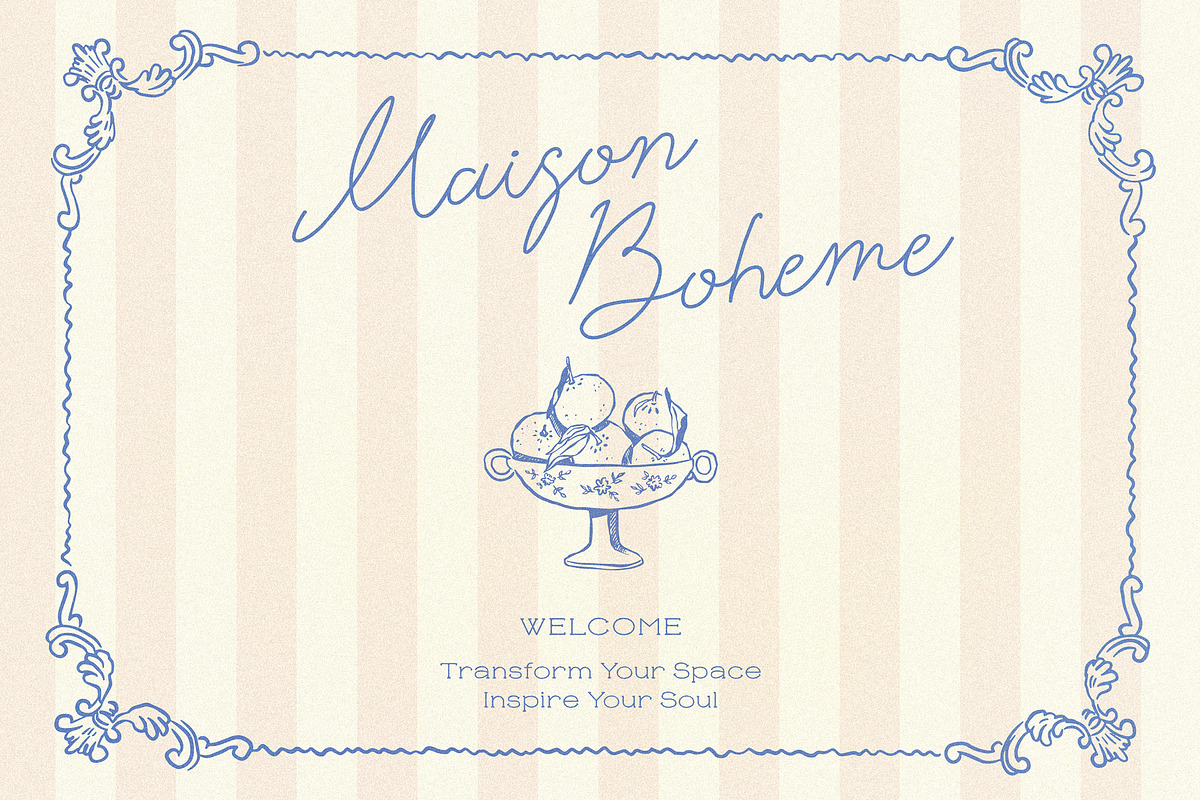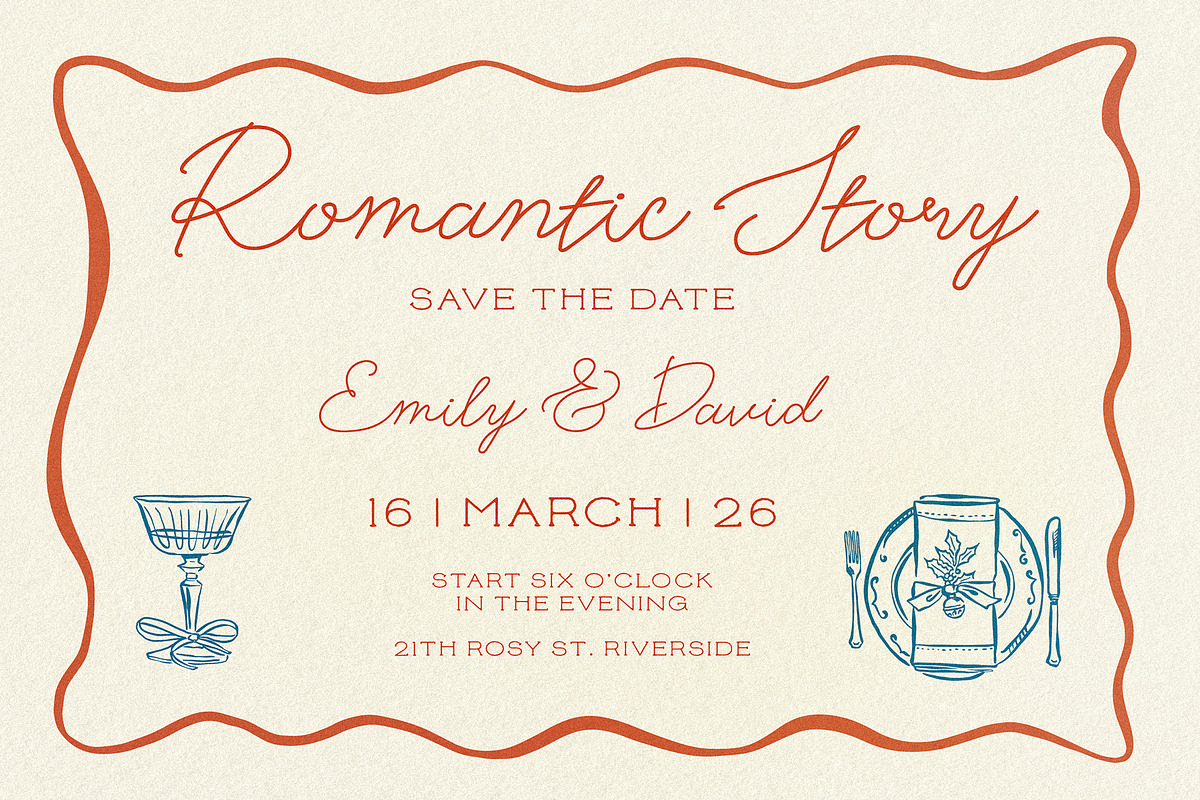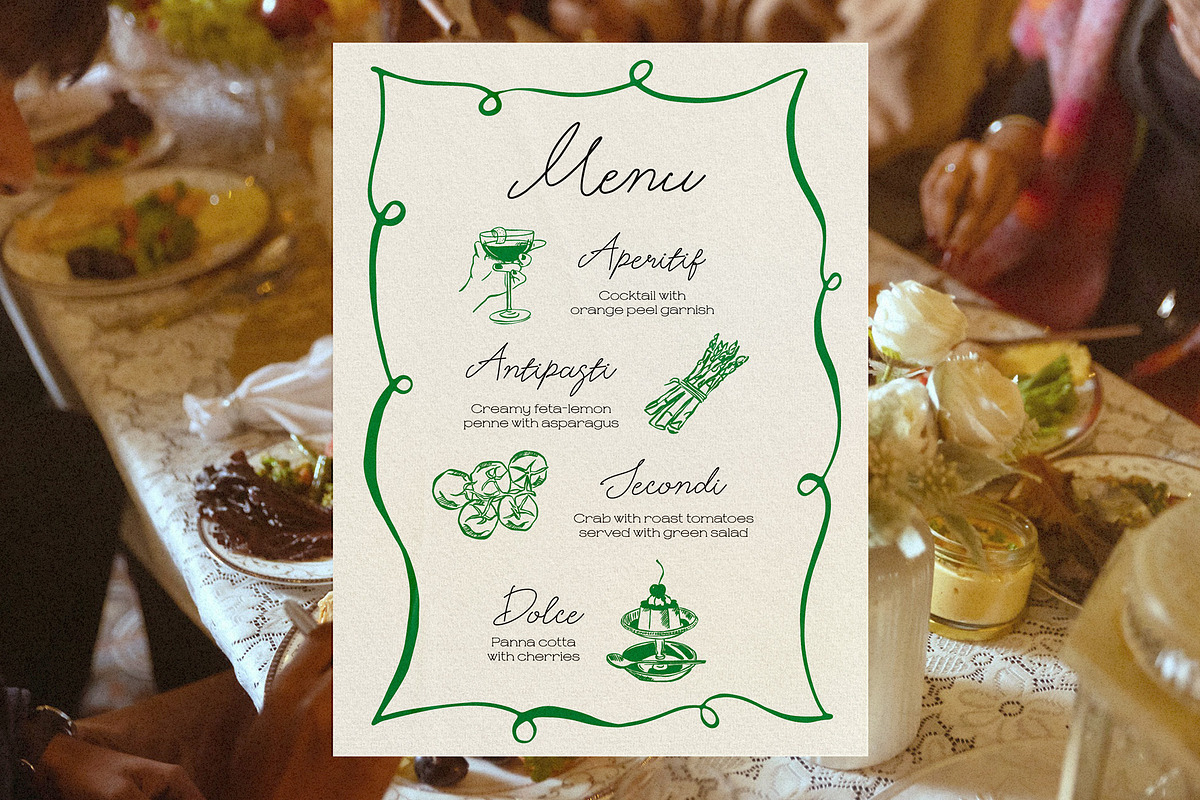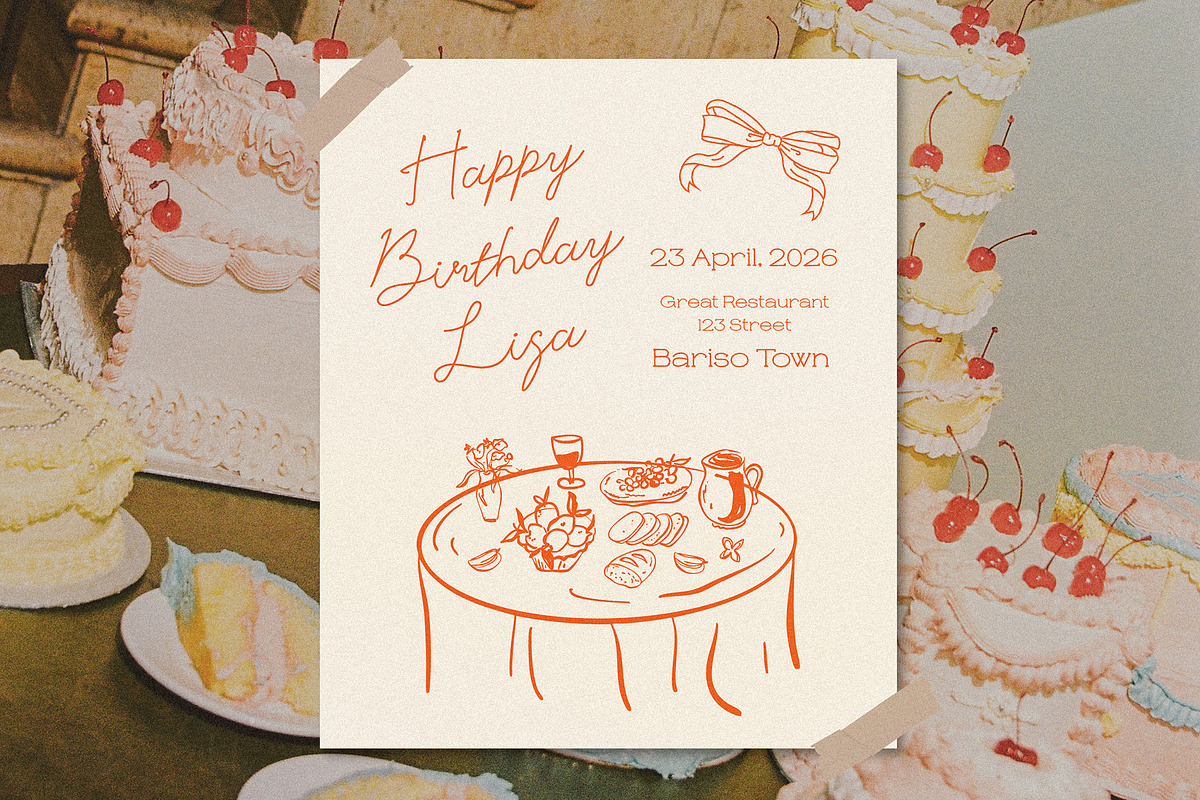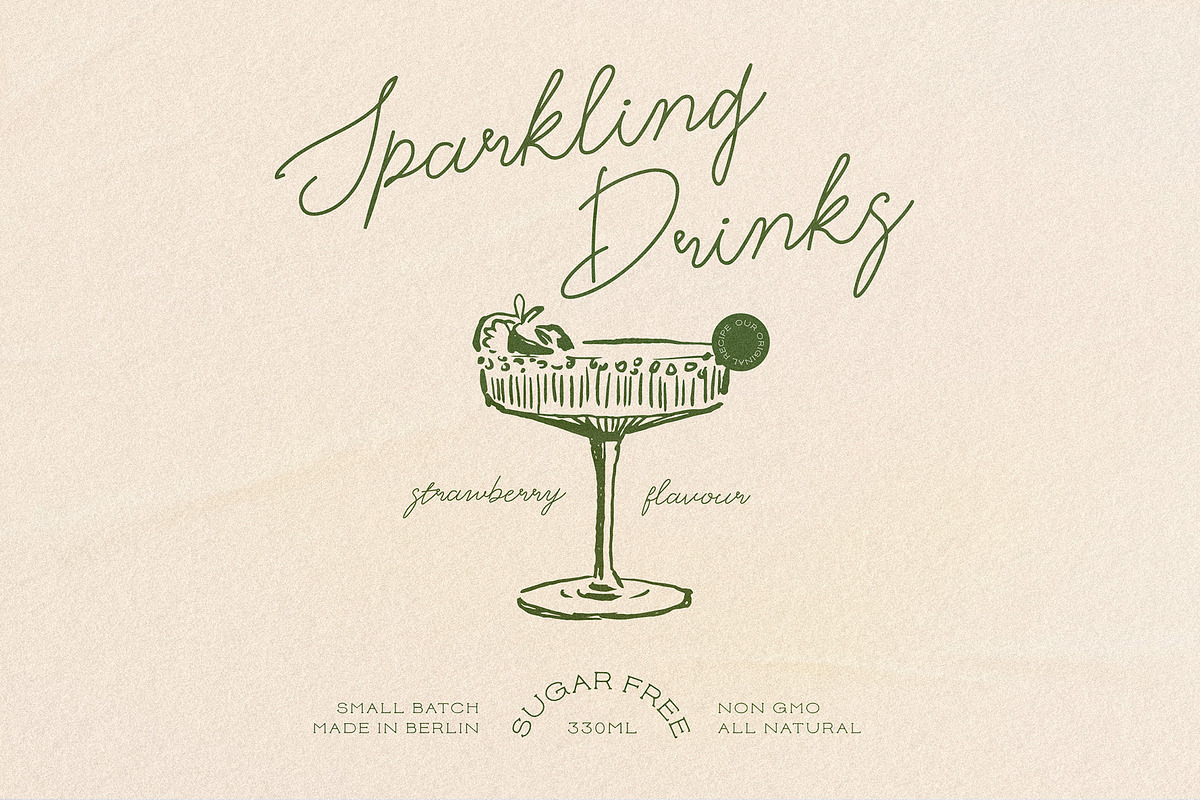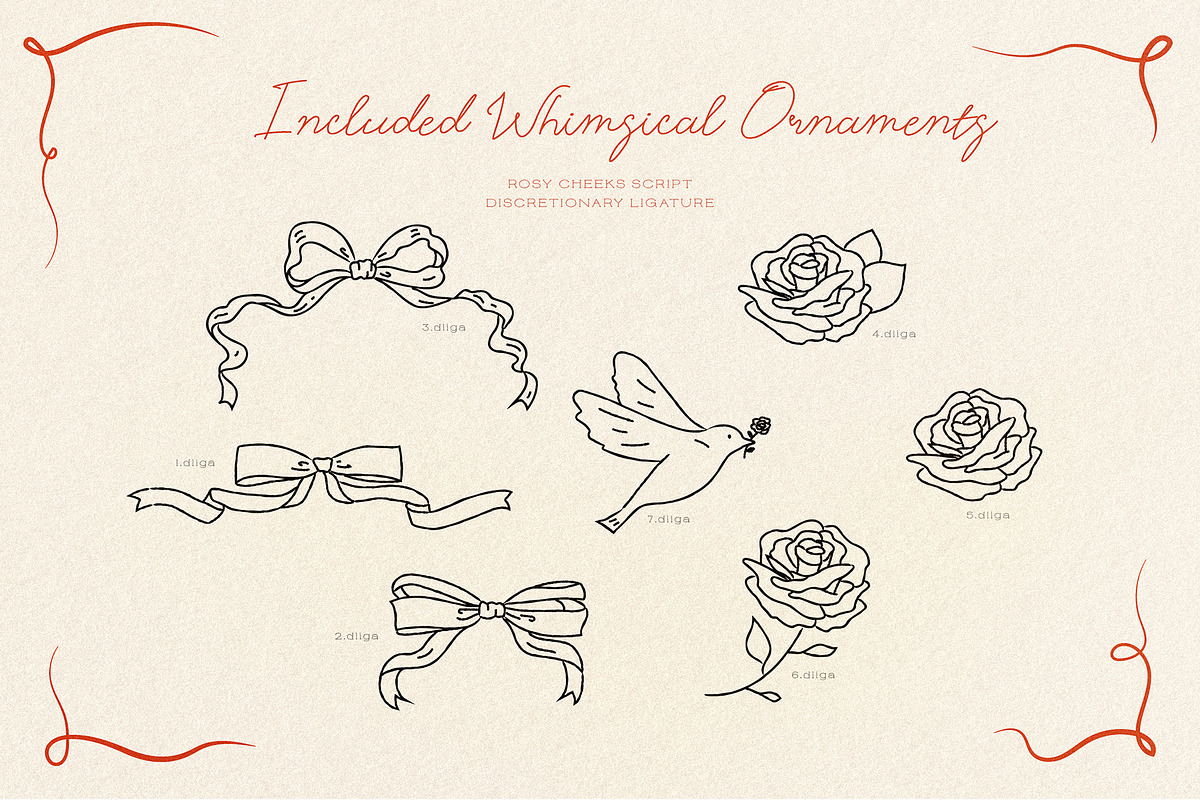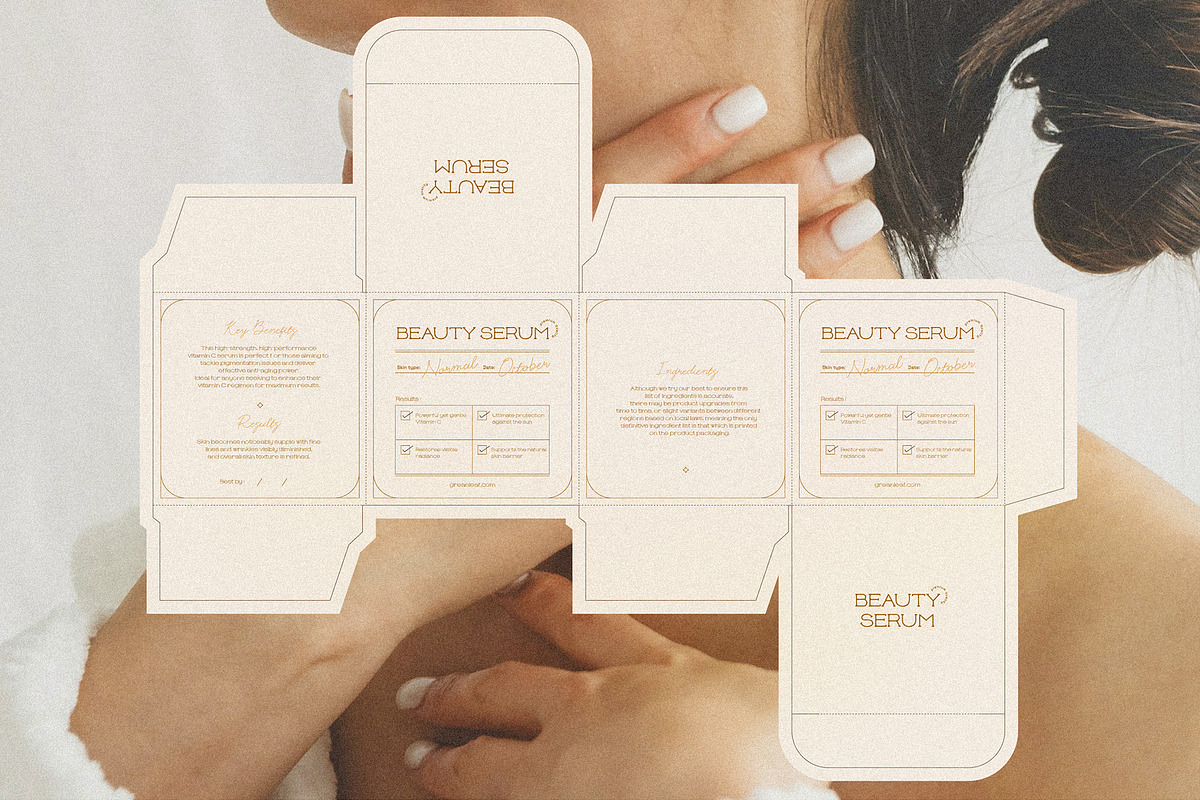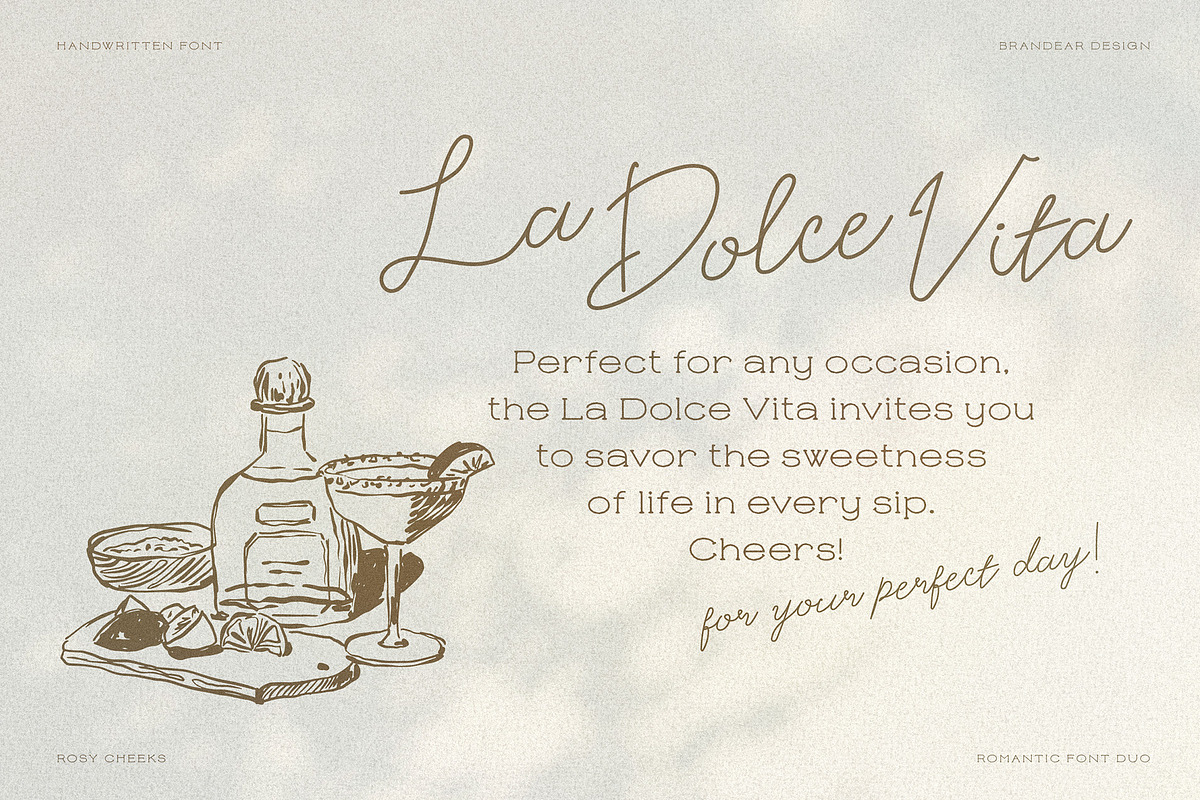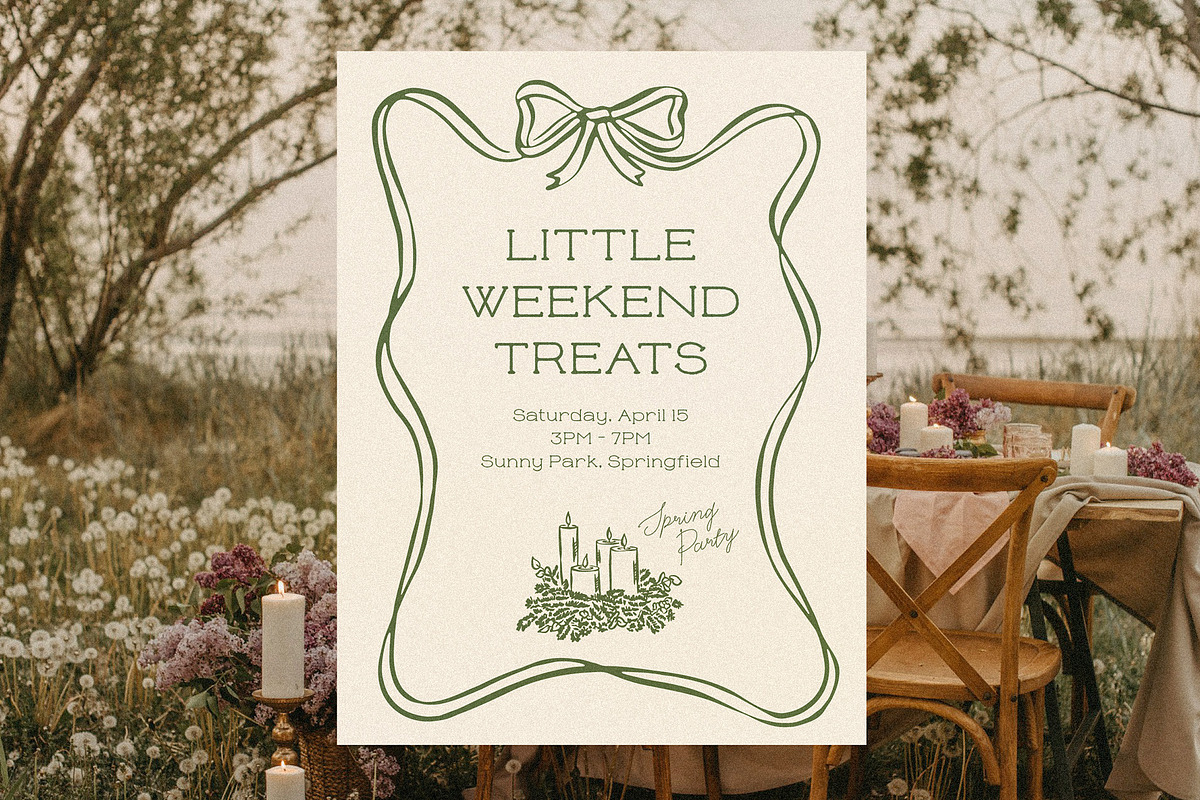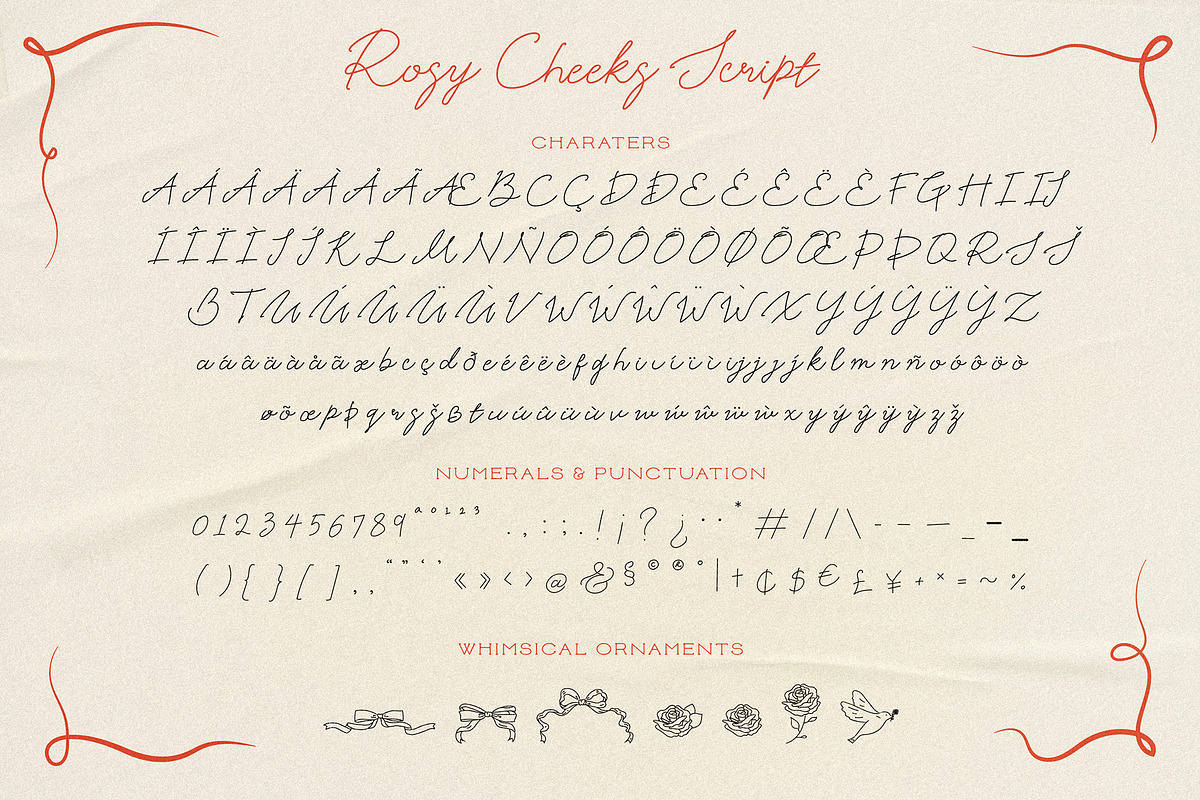
Rosy Cheeks | Romantic font duo
Introducing Rosy Cheeks!
We're excited to present Rosy Cheeks, a charming font duo designed with romance in mind. Ideal for weddings and invitations, this pair blends a graceful script with a lovely handwritten style, perfect for adding a personal touch to your projects.
Rosy Cheeks is versatile, allowing you to mix and match short phrases and longer texts effortlessly. This flexibility makes it suitable for a variety of designs, from stationery to branding.
As a little bonus, we've included delightful glyphs like ribbons, flowers, and birds to enhance your creations and give them a sweet, whimsical feel.
✴︎ Language supported : Danish, English, Filipino, French, German, Indonesian, Italian, Low German, Luxembourgish, Norwegian Bokmål, Norwegian Nynorsk, Portuguese, Spanish, Swedish, Swiss German, Icelandic, Dutch